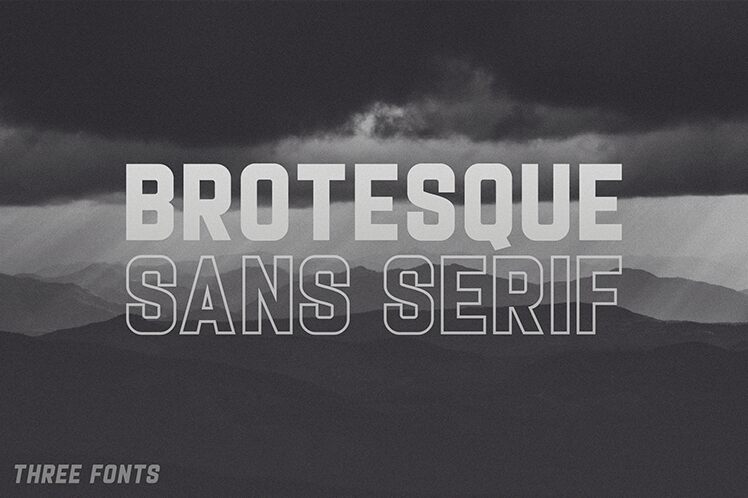
**Brotesque Hollow** font by Shanaya Studio is a geometric sans serif outlined font that graces itself with a minimalist, monoline structure. It is clean and modern and follows the symmetrical grid typography style that delivers beauty and functionality with each design. This beautiful typeface takes its inspiration from hand-drawn vintage designs, reinterpreted in an elegant digital fashion.
This free sans serif display font can decorate posters, signages, apparel branding, labels, packaging labels, posters for music events or other events. Add it to your business cards design and social media generated images to really make the most out of Brotesque Hollow by Shanaya Studio.